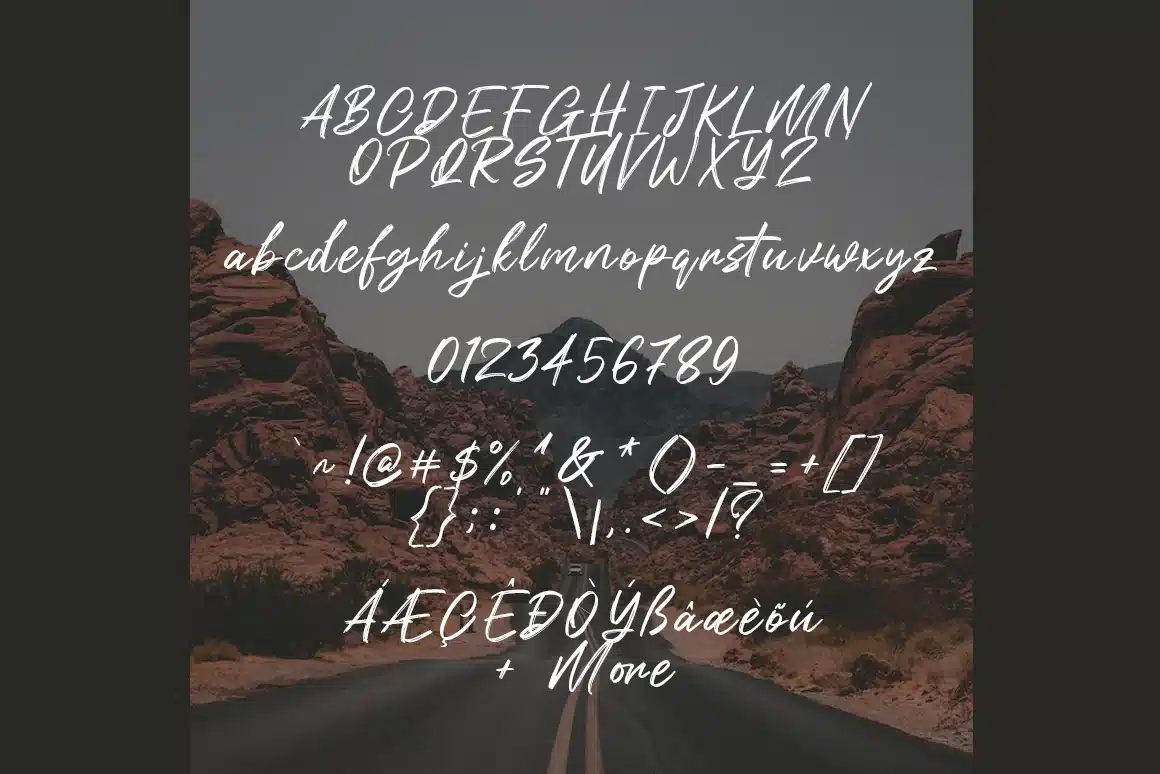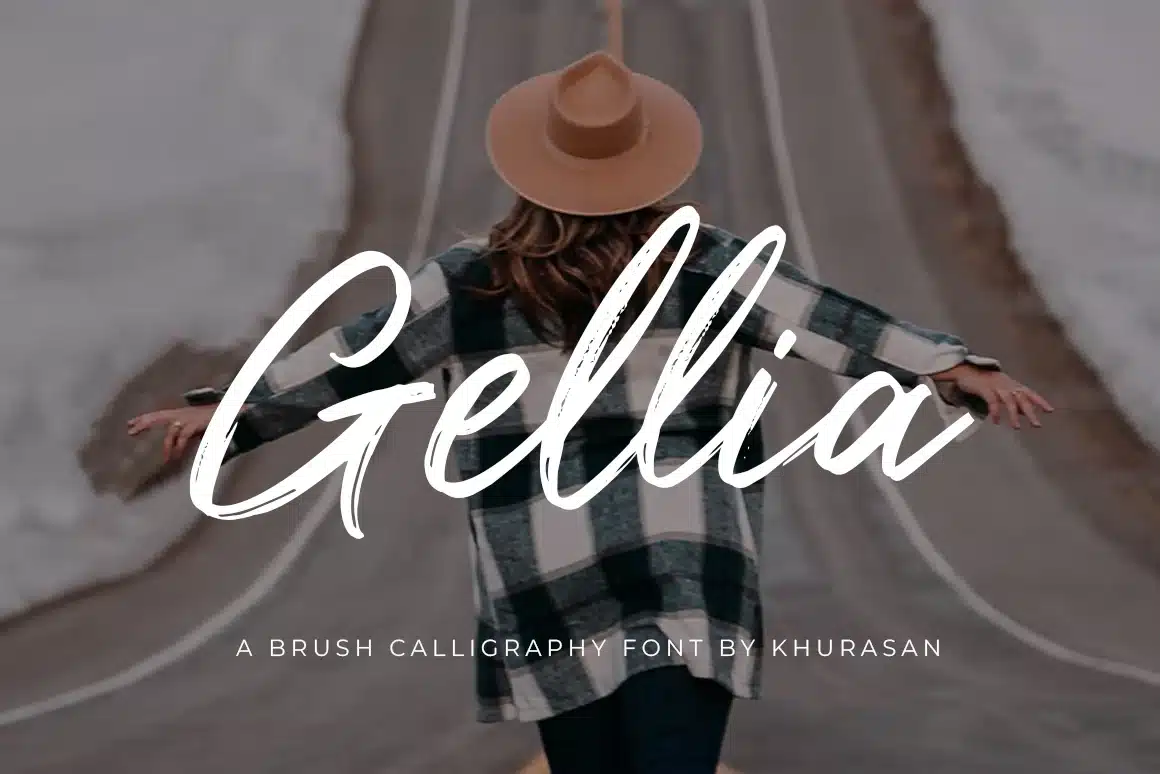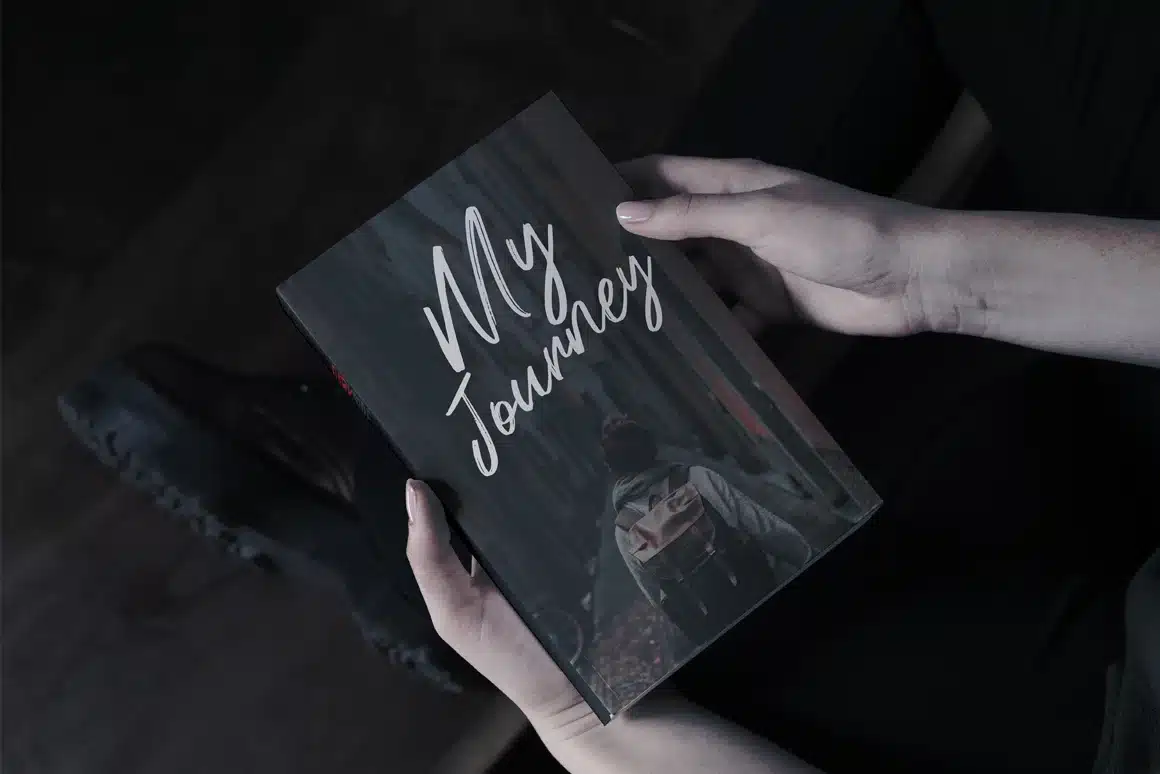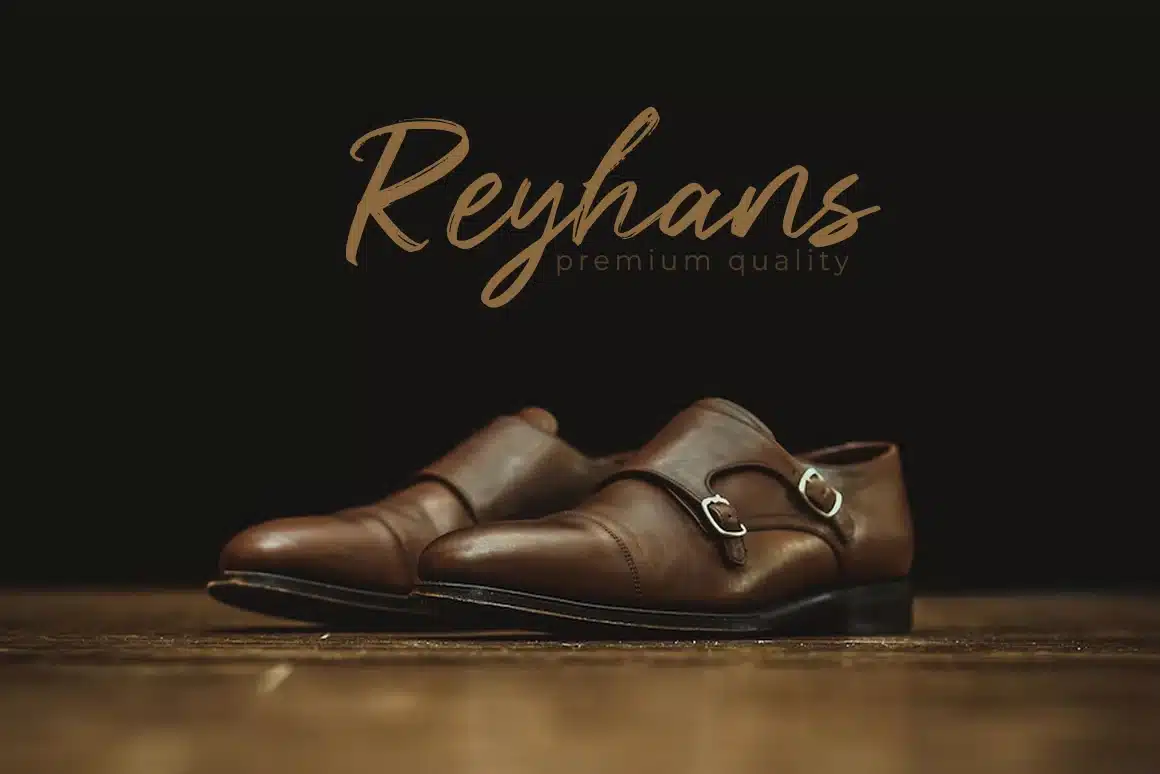
Gellia Font
The Gellia is a fresh brush font, elegant and modern feel character set. The Gellia font as well as multi-lingual support, swashes, uppercase, lowercase, numerals, & punctuation.
Khurasan